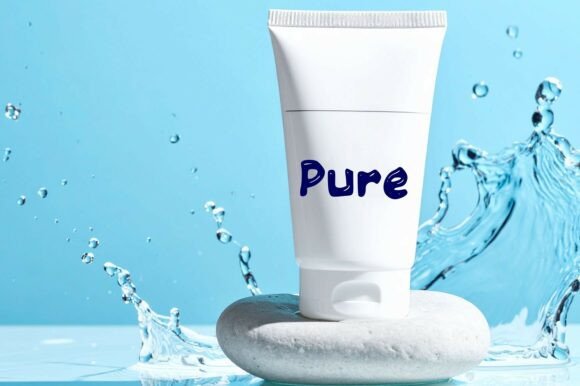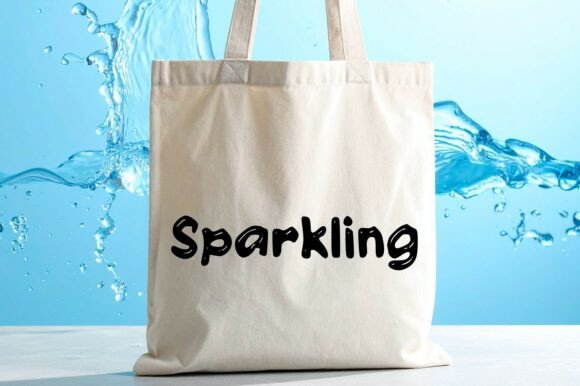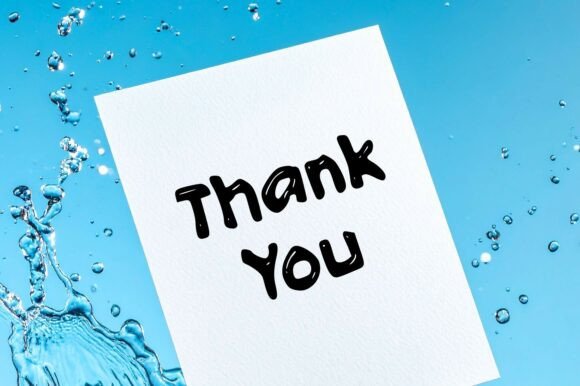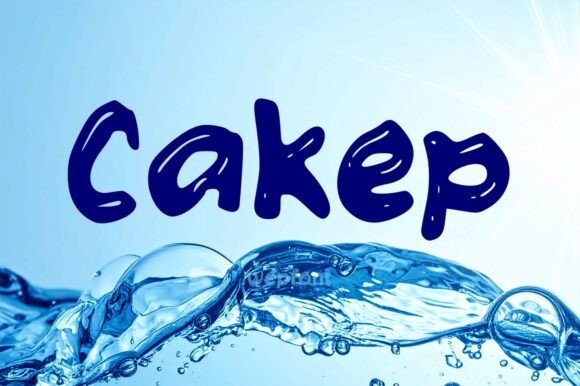
Succumb to the Cool Allure of Cakep Font: Elevate Your Designs with Elegance and Freshness
In the realm of typography, few fonts manage to capture the essence of purity and freshness as effortlessly as Cakep. This elegant and fluid display font is designed to add a dash of diamond-like purity to your creative canvas, making it an ideal choice for designers seeking to infuse their projects with a sense of sophistication and vibrancy. With its polished letterforms and flowing lines, Cakep mirrors the undefiled beauty of water, symbolizing freshness and invigorating energy.
The Beauty of Cakep: A Symphony of Elegance and Excitement
Each letterform in Cakep is crafted to resonate with vibrant life, skillfully encapsulating an air of purity and a fizz of excitement. The font’s design is characterized by sharp curves and brilliantly fluid lines, which work in harmony to create a visually stunning effect. Whether you’re shaping sleek brand personas for beauty or wellness firms, brewing eye-catching visuals for beverage labels, fashioning trendy merchandise, or crafting invigorating lifestyle content, Cakep is your ticket to distinction.
Comprehensive Features for Versatile Design
Cakep is more than just a visually appealing font; it’s also designed with versatility in mind. It comes with a comprehensive set of standard punctuation glyphs, meeting all your textual needs with sublime elegance. This adaptability makes Cakep an elite instrument for designers, allowing you to use it across a range of projects and applications. Furthermore, Cakep boasts wide compatibility with various design software and platforms, ensuring seamless integration into your workflow.
Unlock Endless Design Possibilities with Cakep
The potential applications for Cakep are vast and varied. For designers and crafters looking to elevate their projects with a touch of elegance and freshness, Cakep offers endless possibilities. Here are a few ways you can leverage the power of Cakep:
- Branding and Identity: Use Cakep to create stunning brand personas for beauty, wellness, and lifestyle companies, conveying a sense of purity and sophistication.
- Packaging Design: Add a dash of elegance to your beverage labels, product packaging, and other materials with Cakep’s fluid lines and polished letterforms.
- Merchandise: Fashion trendy merchandise that stands out with Cakep’s unique and captivating design.
- Content Creation: Craft invigorating lifestyle content that resonates with your audience, using Cakep to add a touch of freshness and excitement.
Why Choose Cakep?
With so many fonts available, why choose Cakep? The answer lies in its unique combination of elegance, freshness, and versatility. Here are a few compelling reasons to select Cakep for your next project:
- Elegance and Sophistication: Cakep’s diamond-like purity and fluid lines add a touch of sophistication to any design.
- Freshness and Excitement: The font’s vibrant life and polished letterforms inject a sense of freshness and excitement into your projects.
- Versatility: Cakep’s comprehensive set of glyphs and wide compatibility make it suitable for a range of applications and design software.
In conclusion, Cakep is more than just a font – it’s an instrument of creativity, designed to help designers and crafters elevate their projects with elegance, freshness, and sophistication. With its unique blend of polished letterforms, fluid lines, and comprehensive features, Cakep is poised to become a go-to choice for those seeking to add a dash of diamond-like purity to their creative canvas. So why wait? Succumb to the cool allure of Cakep and unlock a world of design possibilities that are as fresh as they are elegant.